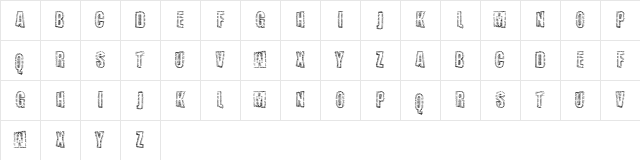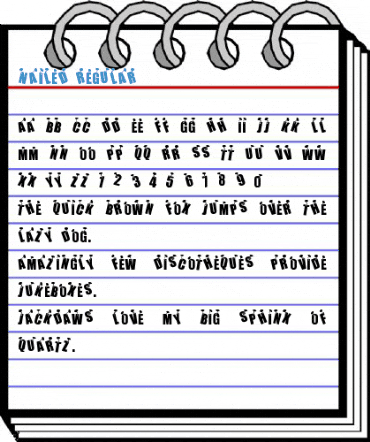
NAILED is a composed and adaptable typeface that performs quietly and consistently across a wide range of design contexts.
Who designed the NAILED Regular font?